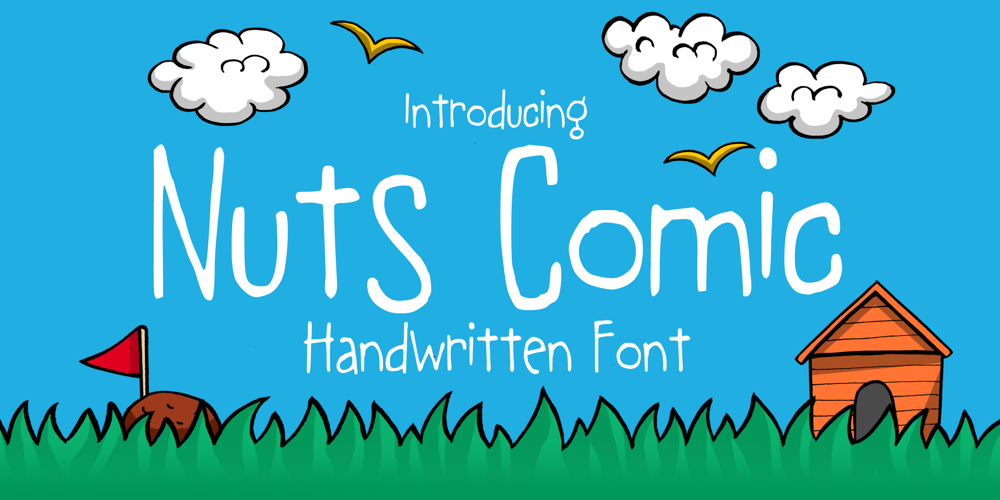
Nuts Comic Font Family was designed by Gabriel Valentinus and published by Mvmet. Nuts Comic contains 1 styles and family package options. Nuts Comic is a fun handwritten font inspired by 80s and 90s comic strips. You can use it for anything ranging from t-shirts, book designs, and greeting cards to stickers and posters, or anything that needs a casual touch. Fall in love with its incredibly versatile style, and use it to create lovely designs!